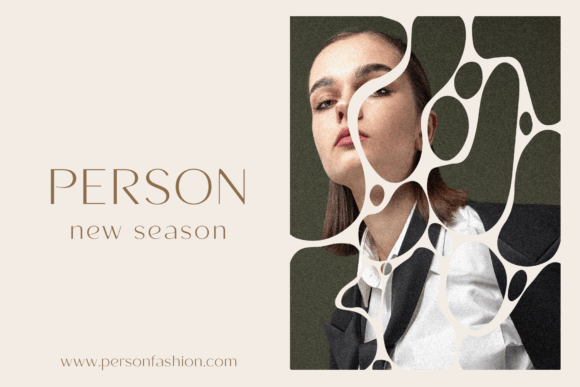
Roden Font
Roden is an elegant and modern font family.
It includes eight weights from Thin to Bold and italics to them. This font is a multi-purpose font that is perfect for any project, it is contrasted, modern and easy to read. Thanks to its clean lines and balanced proportions, it has its own unique charm and charm. With it, you can create logos, use in advertising, packaging, branding, editorial design, and corporate projects, book covers, magazines, headings, descriptions and much more.